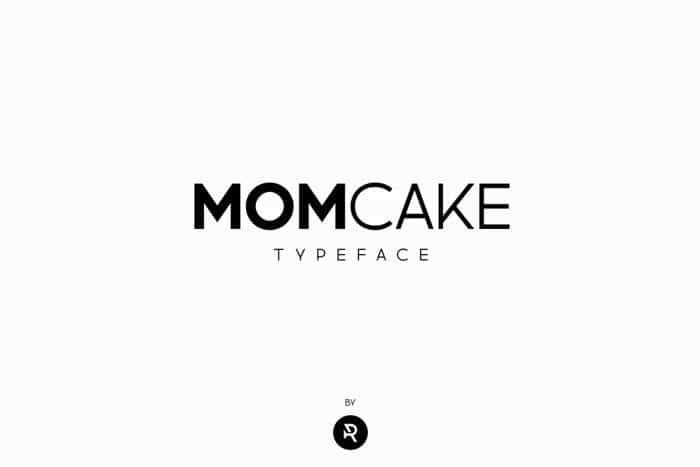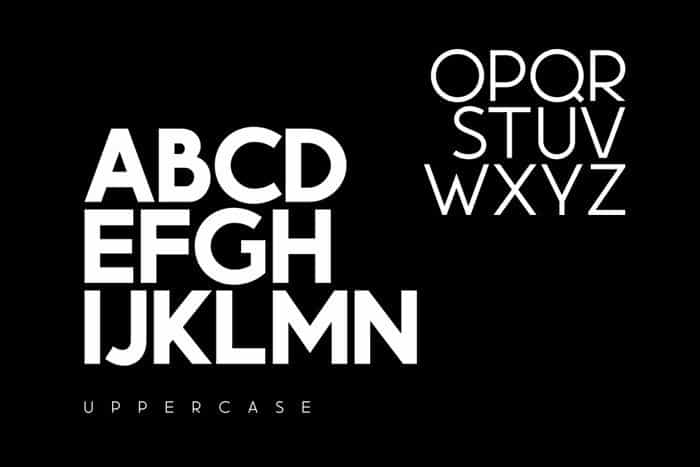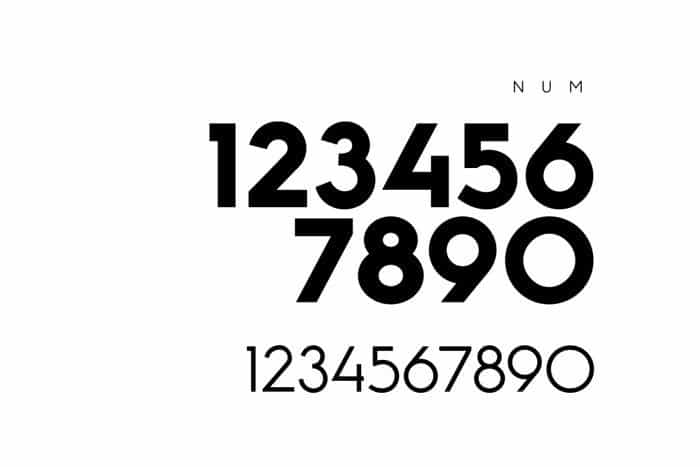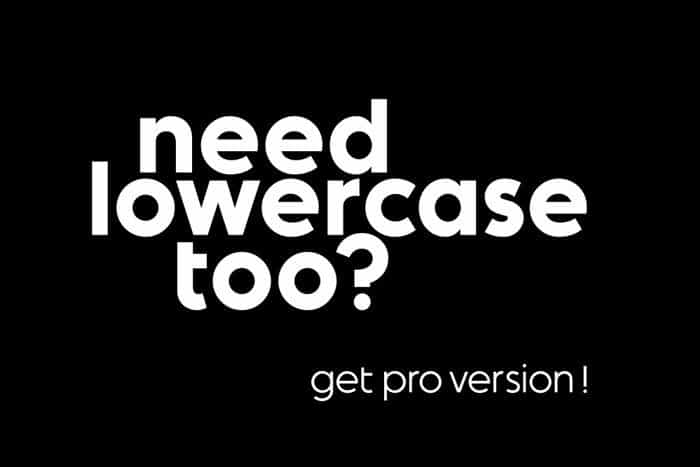
MOMCAKE works great both large and small. It’s a very versatile font and perfect for branding projects, large artwork, and all manner of editorial uses. This form is equally adept at large branding projects or small logos, and can also be found across clothing labels, post titles, product packaging headers or magazines.